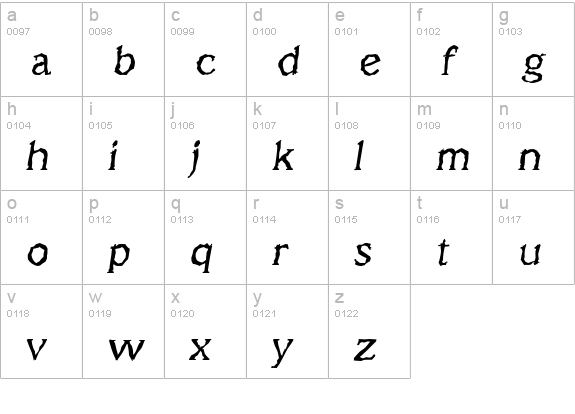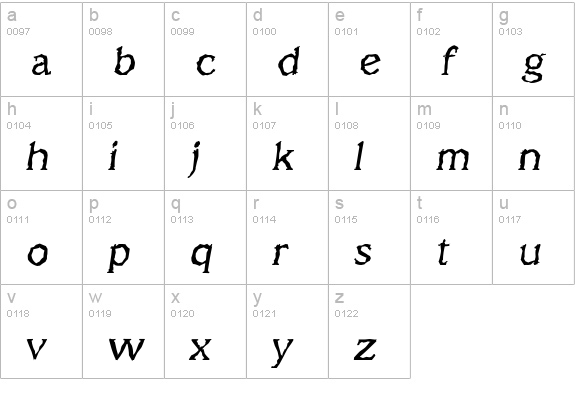
VeracruzRandom-Italic Font Details
VeracruzRandom-Italic is a distinctive, italic variant in the VeracruzRandom typeface family \xE2\x80\x94 well suited to design and typography projects.
VeracruzRandom-Italic font is a captivating and stylish typeface that exudes a sense of elegance and sophistication. Its playful yet refined design makes it perfect for adding a touch of creativity to any project. The italic style adds a dynamic and modern twist to your text, making it stand out and grab attention. This font is not only visually appealing but also versatile, suitable for a wide range of design purposes including branding, advertising, invitations, and more. Its unique and distinctive look will make your text pop and leave a lasting impression on your audience. Best of all, VeracruzRandom-Italic font is available for free download at FontsMarket.com. So why wait? Add this stunning font to your collection today and elevate your designs to the next level.